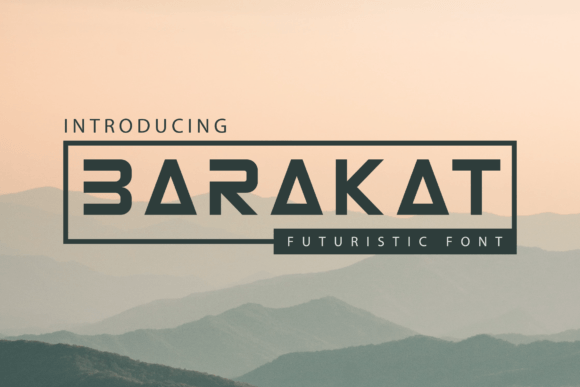
Introducing Barakat Font: The Cool, Futuristic Sans Display Font
In the world of typography, fonts play a crucial role in making or breaking a design. A font can elevate your project from ordinary to extraordinary, and that’s where Barakat Font comes in. Barakat is a cool, futuristic sans display font that is taking the design world by storm. Its uniquely-shaped characters are perfect for adding an original and stylish accent to any design you wish to create.
What Makes Barakat Font So Special?
Barakat Font is not your average font. Its futuristic design makes it stand out from the crowd, and its versatility makes it suitable for a wide range of design projects. Whether you’re a designer, craftsperson, or simply someone who loves to dabble in creativity, Barakat Font is a must-have in your font library.
One of the key features of Barakat Font is its uniquely-shaped characters. Each letter is carefully crafted to give your design a fresh and modern look. The font’s sans-serif design makes it perfect for use in digital and print media, and its clean lines ensure that your message is conveyed clearly and effectively.
Barakat Font is a dream come true for designers and crafters. Its futuristic design makes it perfect for use in a variety of projects, from branding and advertising to packaging and signage. The font’s versatility also makes it suitable for use in craft projects, such as scrapbooking, card making, and journaling.
Designers will love the fact that Barakat Font is easy to read and understand, making it perfect for use in body text and headings. The font’s modern design also makes it perfect for use in digital media, such as websites, social media, and email marketing campaigns.
How to Use Barakat Font in Your Design Projects
Here are a few tips for using Barakat Font in your design projects:
- Use Barakat Font as a display font to add a pop of personality to your design.
- Pair Barakat Font with a serif font to create a striking contrast.
- Use Barakat Font in your branding and advertising materials to give your brand a modern and edgy look.
Benefits of Using Barakat Font
There are many benefits to using Barakat Font in your design projects. Here are a few:
- Unique and Stylish: Barakat Font is a unique and stylish font that will add a touch of personality to your design.
- Versatile: Barakat Font is versatile and can be used in a wide range of design projects.
- Easy to Read: Barakat Font is easy to read and understand, making it perfect for use in body text and headings.
- Modern Design: Barakat Font has a modern design that makes it perfect for use in digital media.
In conclusion, Barakat Font is a cool, futuristic sans display font that is perfect for adding an original and stylish accent to any design you wish to create. Its uniquely-shaped characters make it stand out from the crowd, and its versatility makes it suitable for a wide range of design projects. Whether you’re a designer, craftsperson, or simply someone who loves to dabble in creativity, Barakat Font is a must-have in your font library.